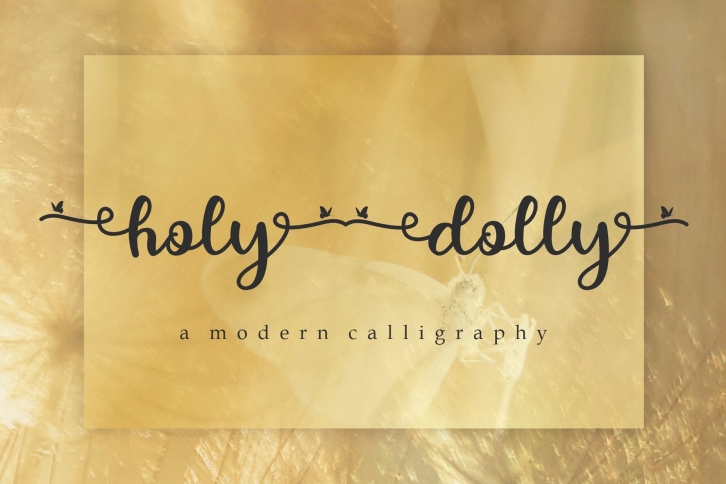
holy dolly is a great font that was designed by raditya Type. Imagine the amount of combinations you can create using this font! The archive is 5.92 MB and it was released on August 13, 2020. holy dolly looks beautiful on wedding invitations, greeting cards, logos, posters, labels, t-shirt designs, logos, business cards and is perfect for use in ink or watercolor works, fashion, magazines, packaging and food menus, children's books and more!